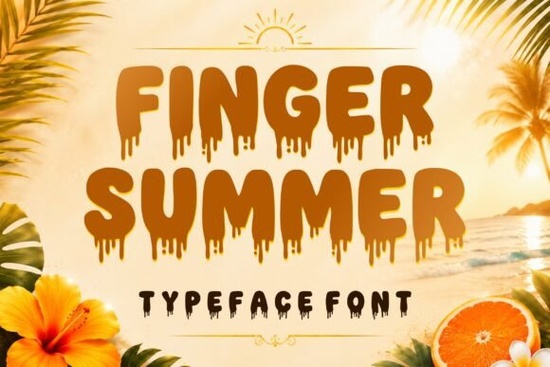
If you're looking for a bold, fun display font that captures the carefree energy of summer, Finger Summer Font is a great choice. It’s perfect for anyone designing beach-themed projects, party invites, or playful merchandise. The rounded, dripping letters give it a hand-drawn feel that feels both retro and fresh like a tropical vacation in typography form.
What makes Finger Summer Font stand out?
The font’s charm lies in its smooth, slightly melting letterforms. Each character has a soft, flowing edge that mimics the way paint might drip in warm weather. This gives your designs a lively, organic look without being too chaotic. It works especially well when paired with bright colors, palm trees, or ocean waves in your graphics.
It’s not just about looks it’s also practical. The font includes uppercase letters, numbers, punctuation marks, and support for multiple languages. That means you can use it across different regions and project types, whether you’re creating a birthday invite for a kid’s pool party or branding a t-shirt line with a tropical twist.
Great for these creative uses:
- Summer party invitations – Add a playful touch to beach birthdays or end-of-summer BBQs.
- Beach and tropical branding – Ideal for surf shops, travel blogs, or boutique resorts.
- T-shirt and merch designs – Stand out on print-on-demand platforms with bold, eye-catching text.
- Posters, flyers, and social media graphics – Grab attention quickly with vibrant, readable text.
- Kids’ activities and school projects – Fun and easy to read, even at smaller sizes.
- Retro summer themes – Think vintage postcards, 70s-inspired ads, or holiday decor.
How does it compare to other playful display fonts?
If you’ve used similar fonts before, you’ll notice Finger Summer stands out because of its unique balance between structure and whimsy. Unlike some overly messy scripts, it keeps readability while still feeling spontaneous. It’s less stiff than formal display fonts but not as wild as freehand-style ones.
For example, if you love the bouncy curves of Daisy Pop Font, you might enjoy how Finger Summer shares that cheerful vibe but with a more defined shape. Or if you like the relaxed flow of Whimsy Curl Font, Finger Summer offers a similar sense of movement with stronger visual impact.
Looking for something with a bit more structure? Varsity Relaxa Font brings a laid-back, sporty feel that pairs well with casual summer events. And if you want a softer, dreamier aesthetic, Dreamie Font adds a gentle, floating quality that complements beachy scenes.
Whether you're a designer working on client projects, a crafter making handmade cards, or a small business owner launching a new product line, this font adds personality to your work without overwhelming it.
Final tip: Use it with confidence
When using any display font, keep the rest of your design simple. Let the text be the star. Pair Finger Summer with clean backgrounds, solid colors, or minimal illustrations so the font doesn’t get lost. Test it at different sizes especially on social media posts or printed items to make sure it stays legible.
Try combining it with other fonts from the same collection for a cohesive look. You’ll find that it fits naturally into many styles, especially those leaning into fun, nostalgic, or tropical themes.